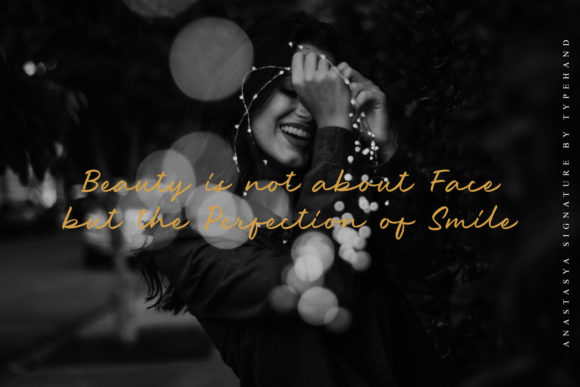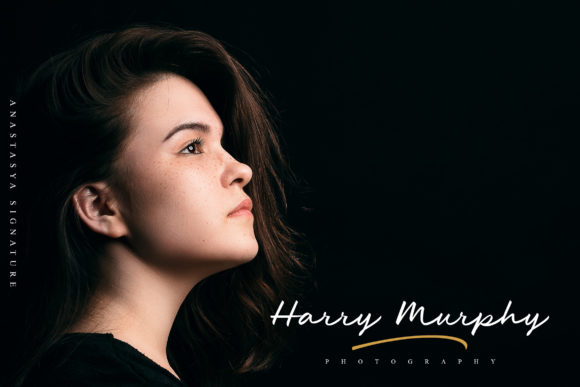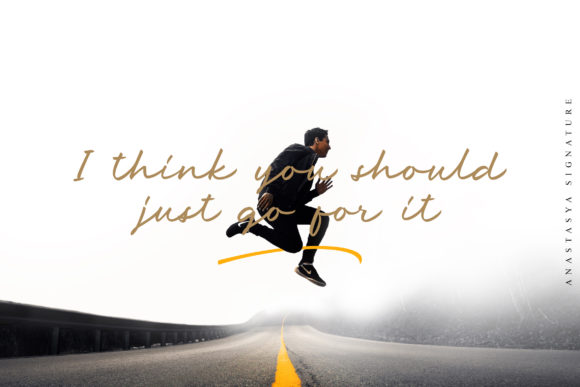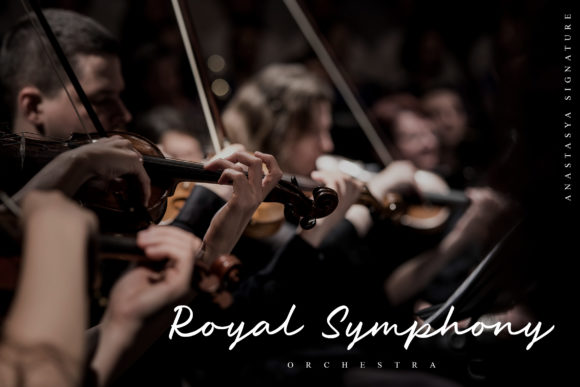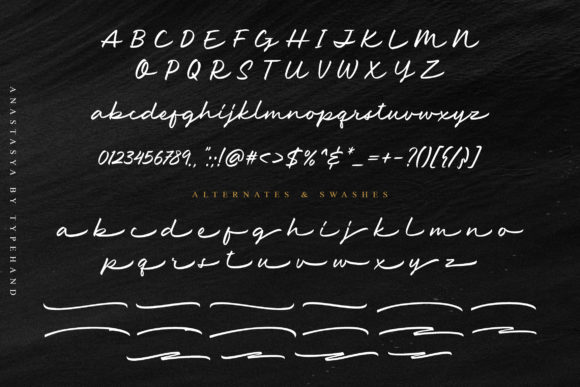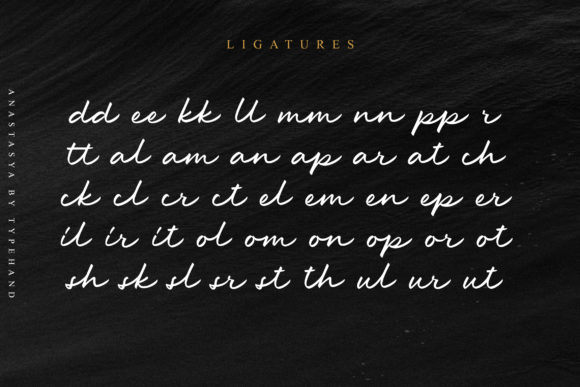
Introducing Anastasya Font: Elevate Your Crafts with Stunning Calligraphy
Are you a designer, crafter, or DIY enthusiast looking to add a touch of elegance and sophistication to your projects? Look no further than the Anastasya Font, a beautiful calligraphy font that exudes a dynamic vibe. With Anastasya, you can transform any craft into a standout piece that captures attention and inspires admiration.
The Beauty of Anastasya Font
Anastasya Font is a meticulously crafted calligraphy font that boasts a unique blend of classic and modern elements. Its fluid strokes, intricate connections, and varying line widths create a sense of movement and energy, making it perfect for projects that require a dynamic touch. Whether you’re working on a branding project, a handmade craft, or a digital design, Anastasya Font is sure to impress.
Key Features of Anastasya Font
- Dynamic Vibe: Anastasya Font’s unique calligraphy style gives it a dynamic, energetic feel that’s perfect for projects that require a touch of personality.
- Elegant and Sophisticated: With its classic and modern elements, Anastasya Font exudes elegance and sophistication, making it ideal for high-end branding, packaging, and design projects.
- Versatile: Anastasya Font can be used for a wide range of projects, from handmade crafts and DIY projects to digital designs and branding initiatives.
Creative Applications of Anastasya Font
Anastasya Font is an incredibly versatile font that can be used in a variety of creative applications, including:
- Handmade Crafts: Add a touch of elegance to your handmade crafts, such as journals, planners, and gift tags, with Anastasya Font.
- Branding and Packaging: Use Anastasya Font to create stunning brand identities, packaging designs, and marketing materials that stand out from the crowd.
- Digital Design: Incorporate Anastasya Font into your digital designs, such as social media graphics, blog headers, and website designs, to add a touch of sophistication and personality.
- DIY Projects: Use Anastasya Font to create beautiful DIY projects, such as signs, banners, and wall art, that showcase your creativity and style.
Tips for Using Anastasya Font
To get the most out of Anastasya Font, here are a few tips to keep in mind:
- Experiment with Different Sizes: Anastasya Font looks great in a variety of sizes, from large headings to smaller body text.
- Play with Color: Anastasya Font can be used with a range of colors, from bold and bright to soft and pastel.
- Mix and Match: Combine Anastasya Font with other fonts and design elements to create unique and eye-catching designs.
| Font Name | Anastasya Font |
| Author | Typehand Studio |